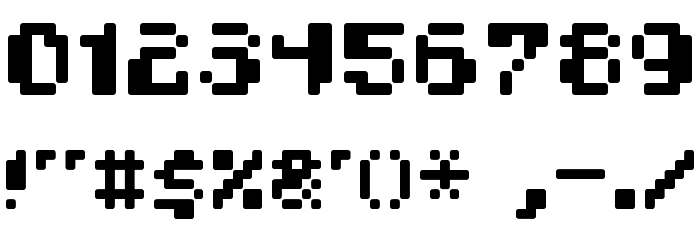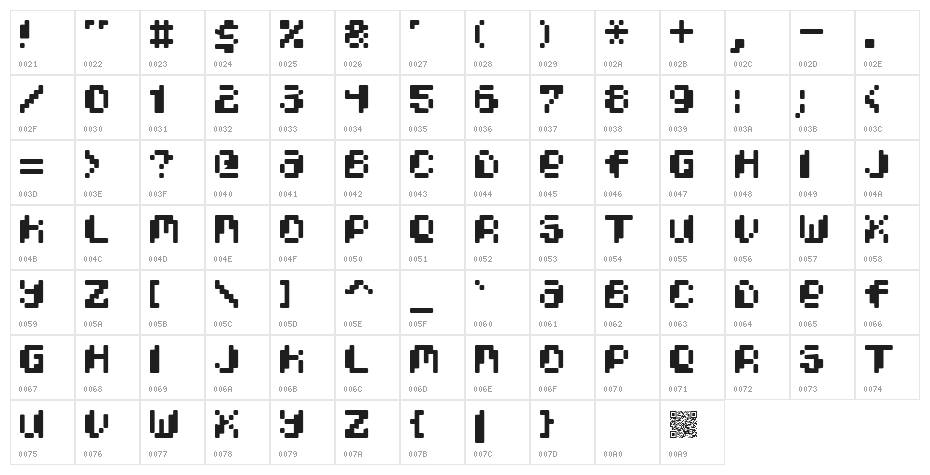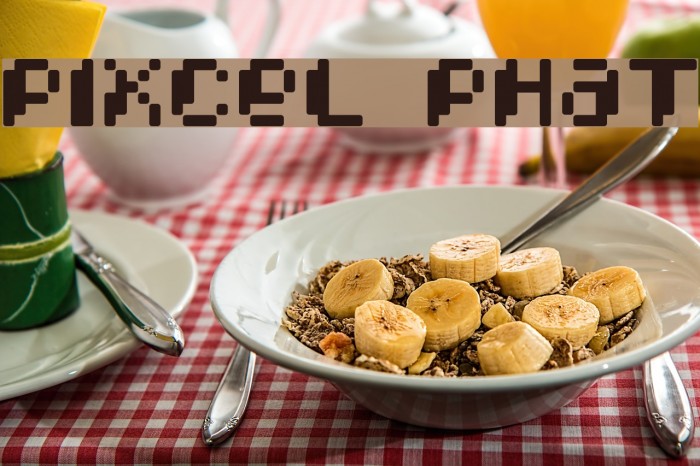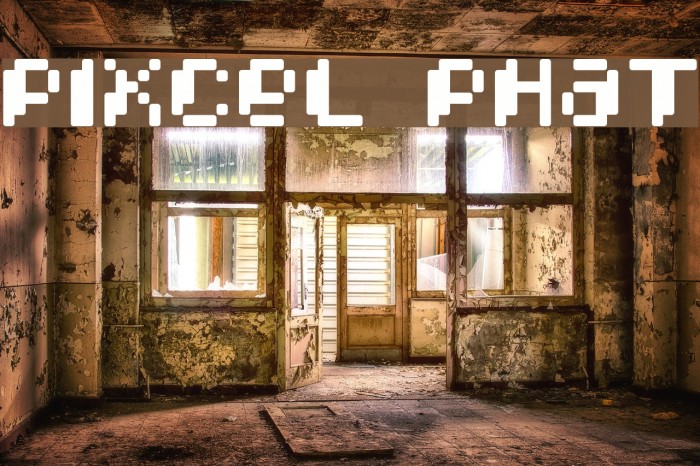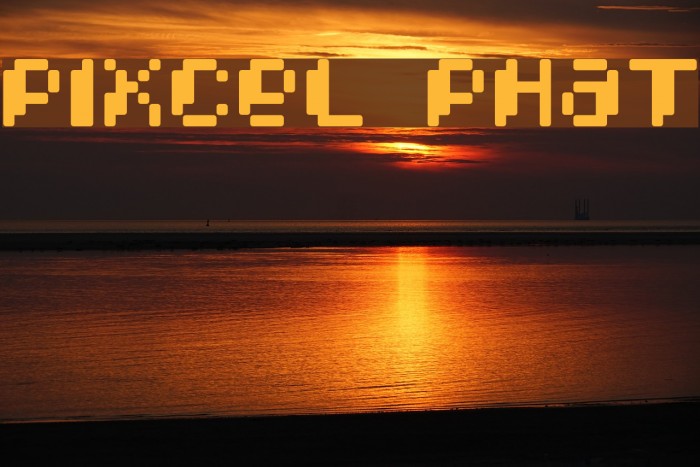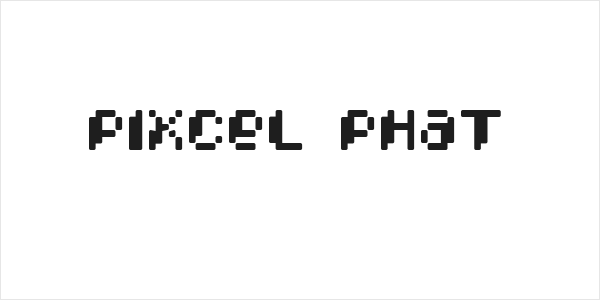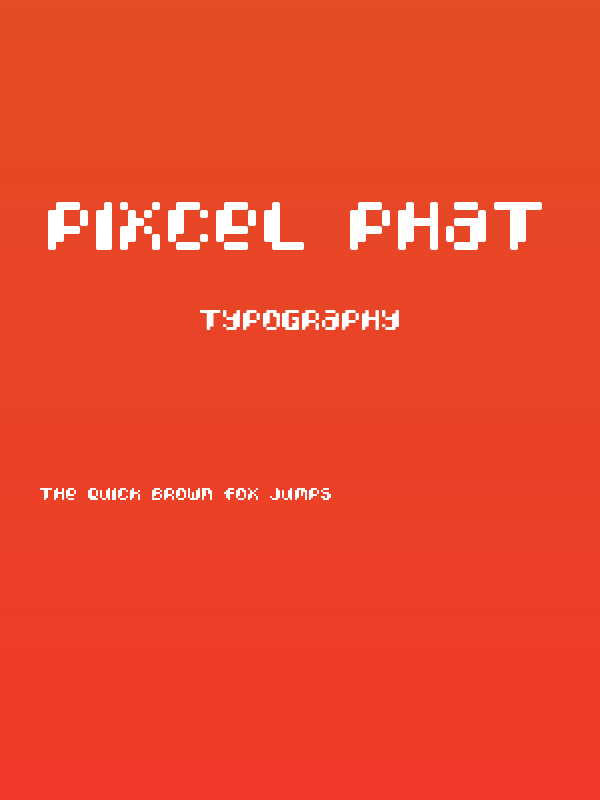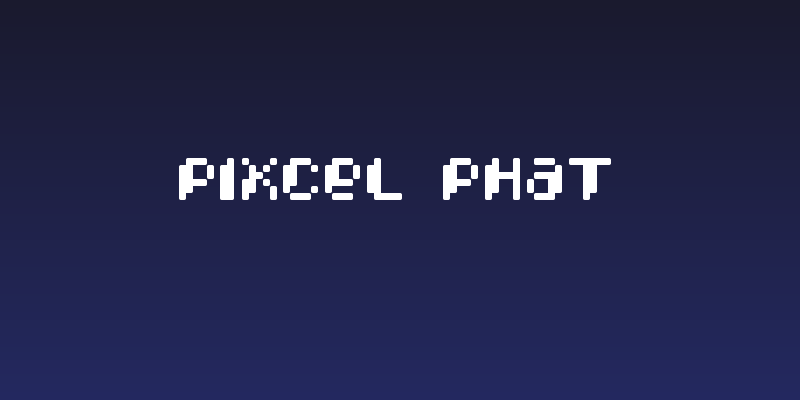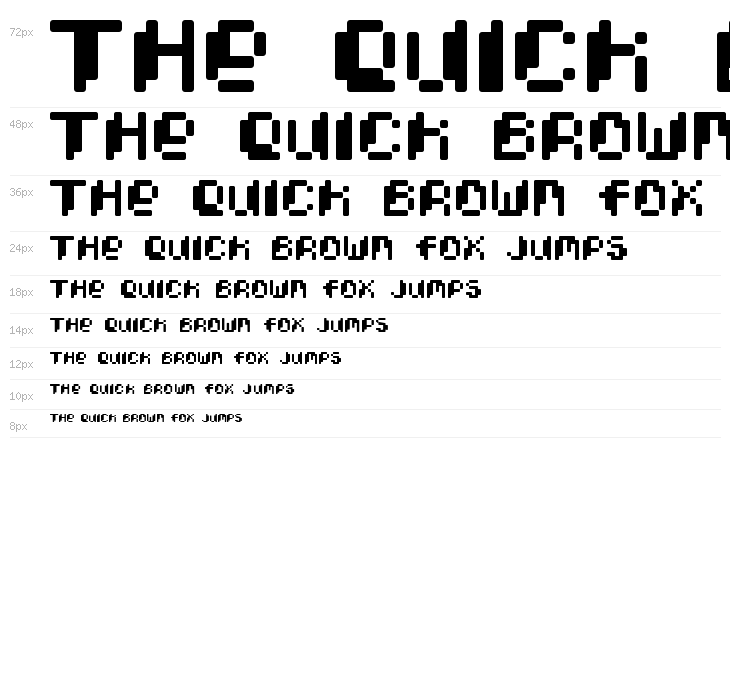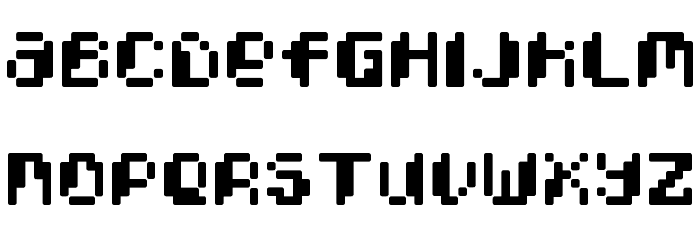
Pixcel Phat Font
Pixcel Phat Description
This font features a bold, pixelated style reminiscent of retro digital displays and early video game graphics. Each character is constructed with a blocky, grid-like pattern that gives it a distinct, tech-inspired appearance. The uppercase and lowercase letters maintain a consistent height, enhancing the uniformity and readability of the text. Numbers and special characters are designed with the same pixelated aesthetic, ensuring a cohesive look across all elements. The font's unique style makes it ideal for projects that aim to evoke nostalgia or a futuristic digital theme.
| Proposed Projects | Ideal for video game graphics, tech-themed posters, retro digital art, and any project seeking a nostalgic or futuristic digital aesthetic. |